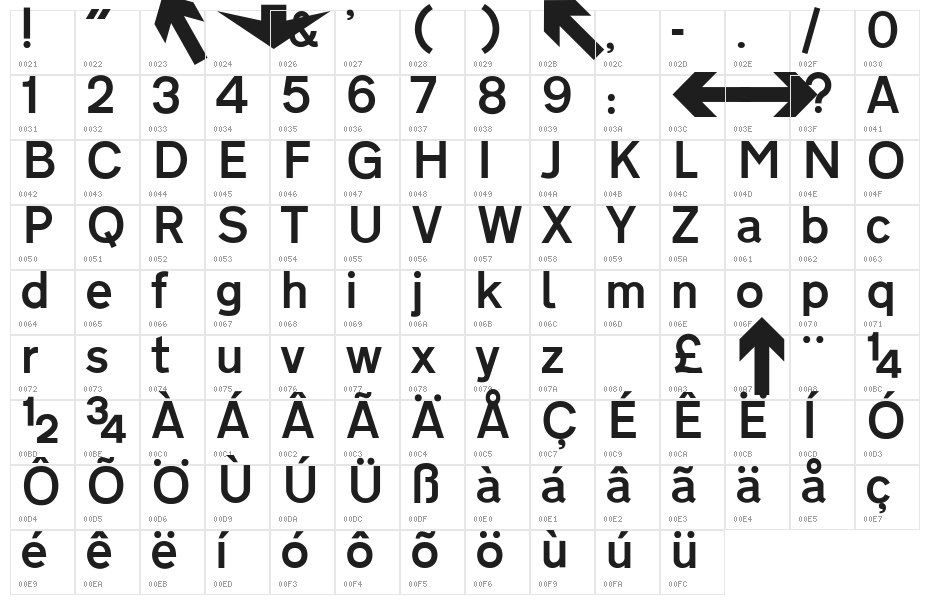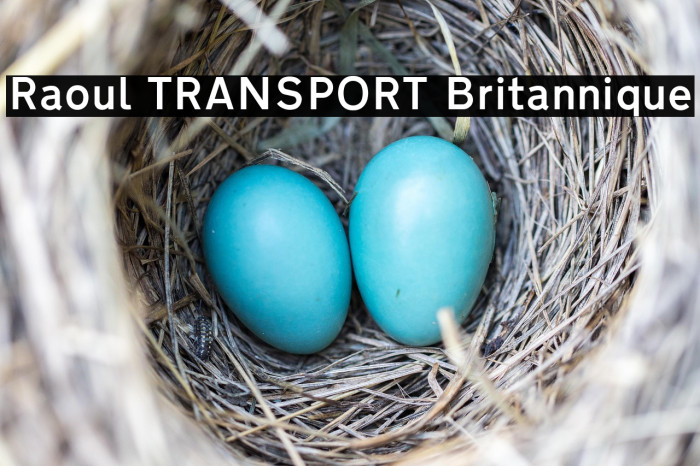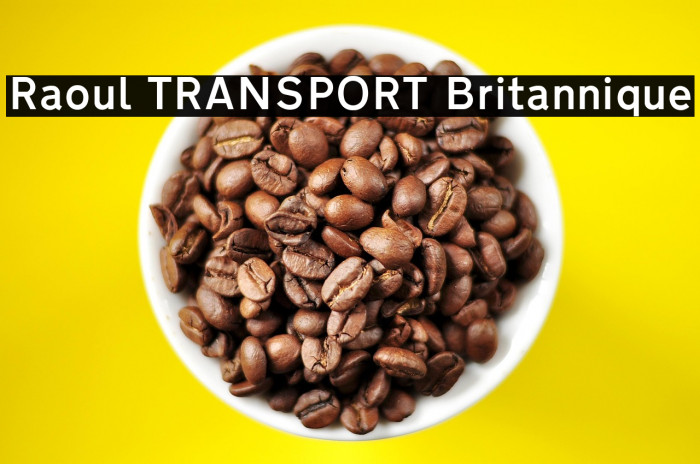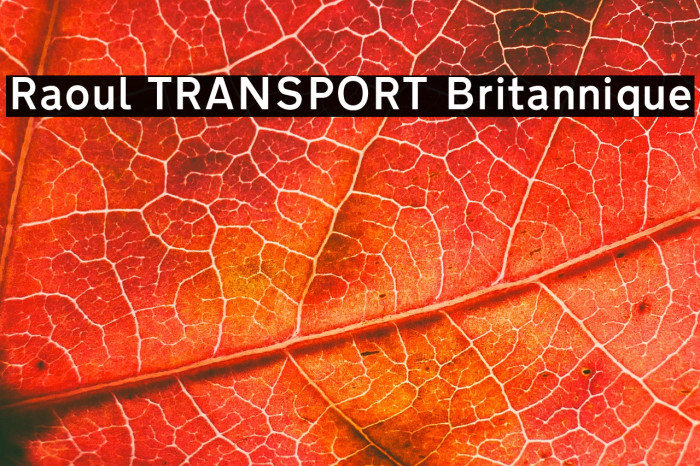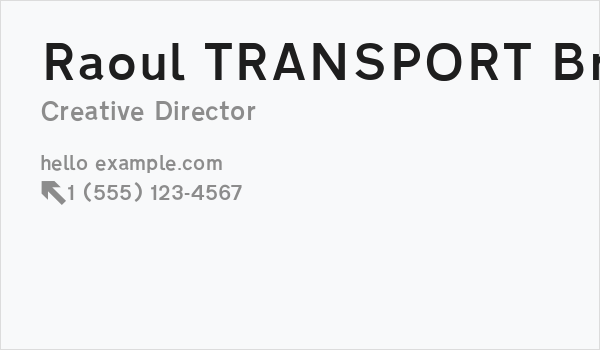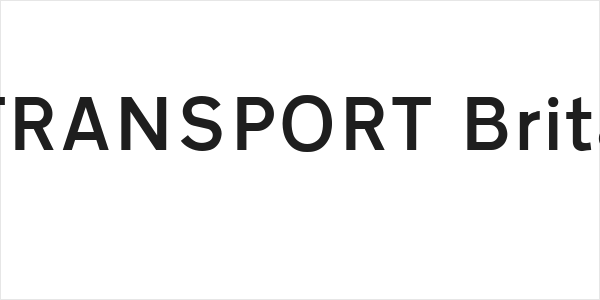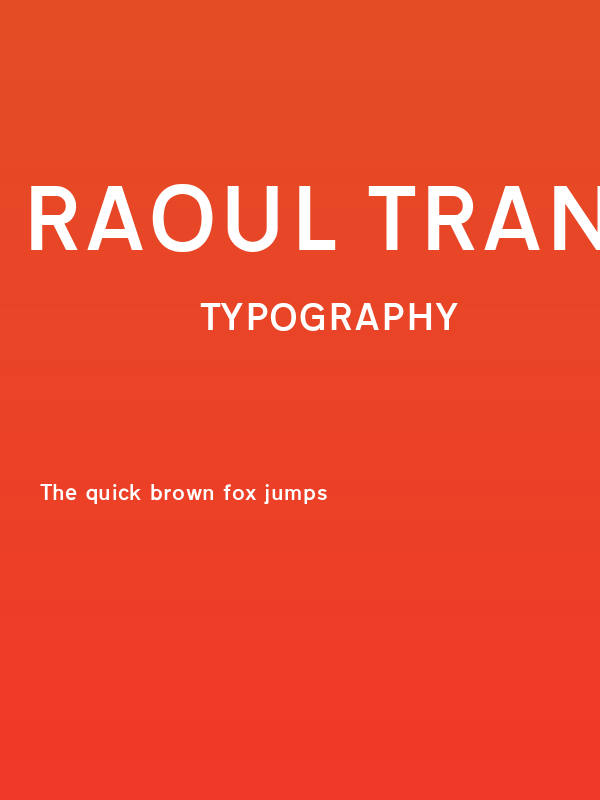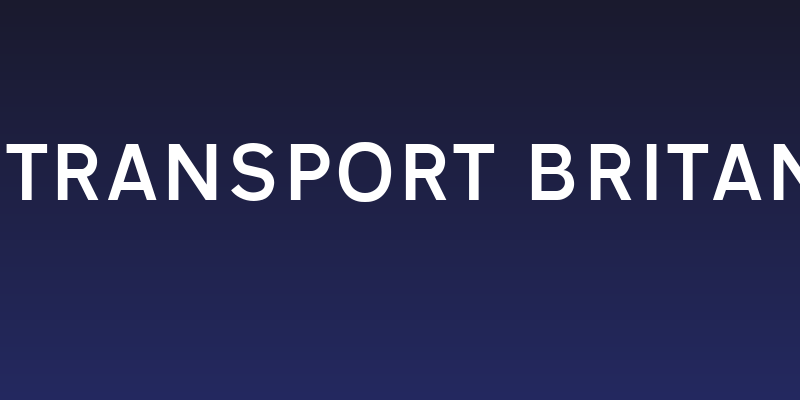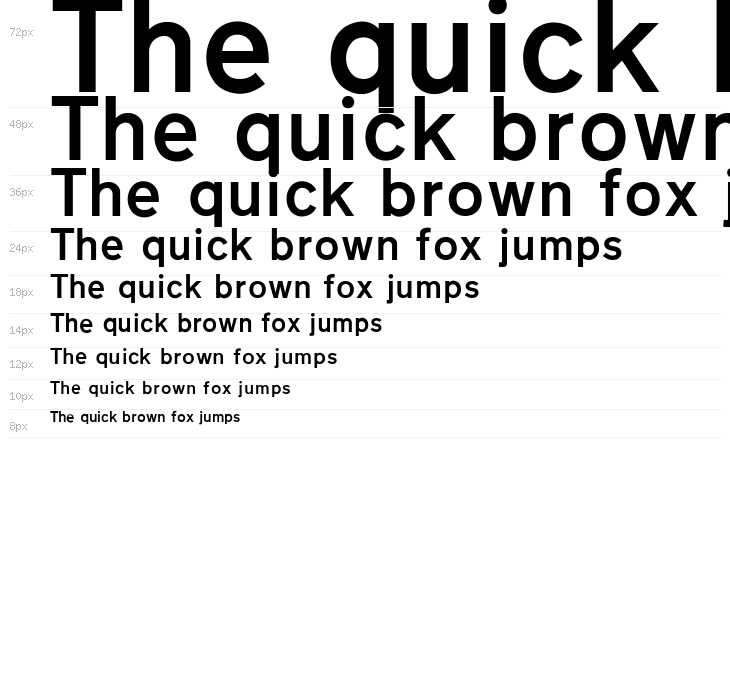
Raoul TRANSPORT Britannique Font
Raoul TRANSPORT Britannique Description
This typeface is a clean and modern sans-serif font characterized by its geometric shapes and uniform stroke width. The letters are well-proportioned, with a slightly condensed appearance that enhances readability. The uppercase letters are bold and assertive, while the lowercase letters maintain a consistent height, offering a balanced look. The numerals are clear and distinct, making them suitable for various applications. Special characters are included, providing versatility for different uses. The overall design is straightforward and functional, ideal for conveying information clearly and efficiently.